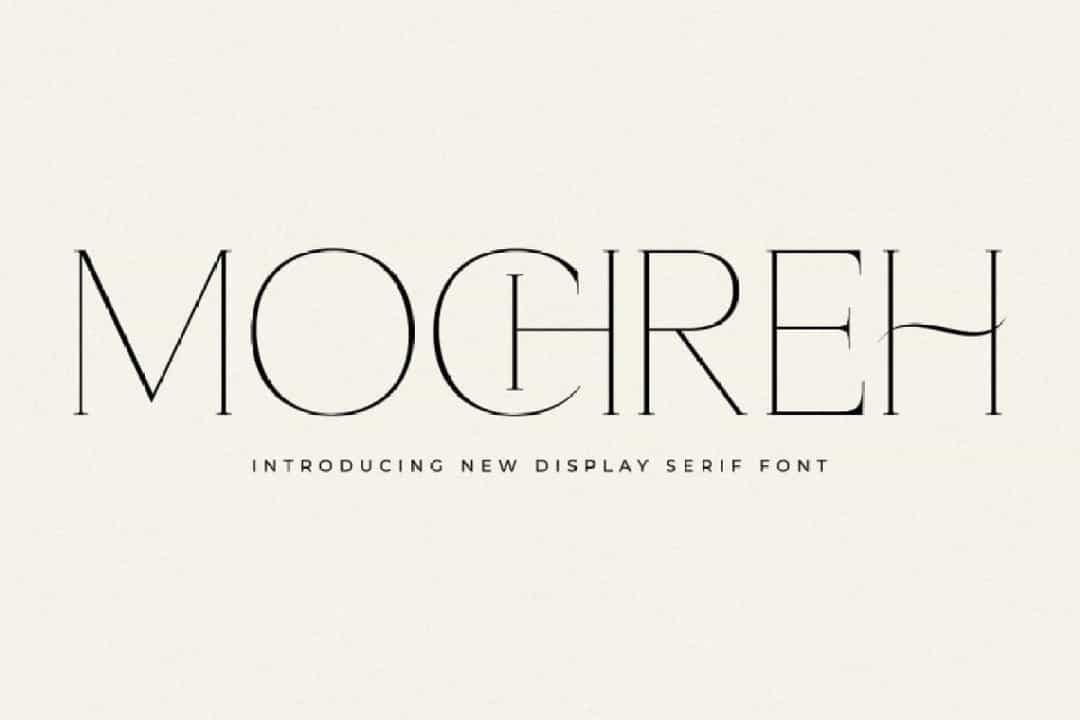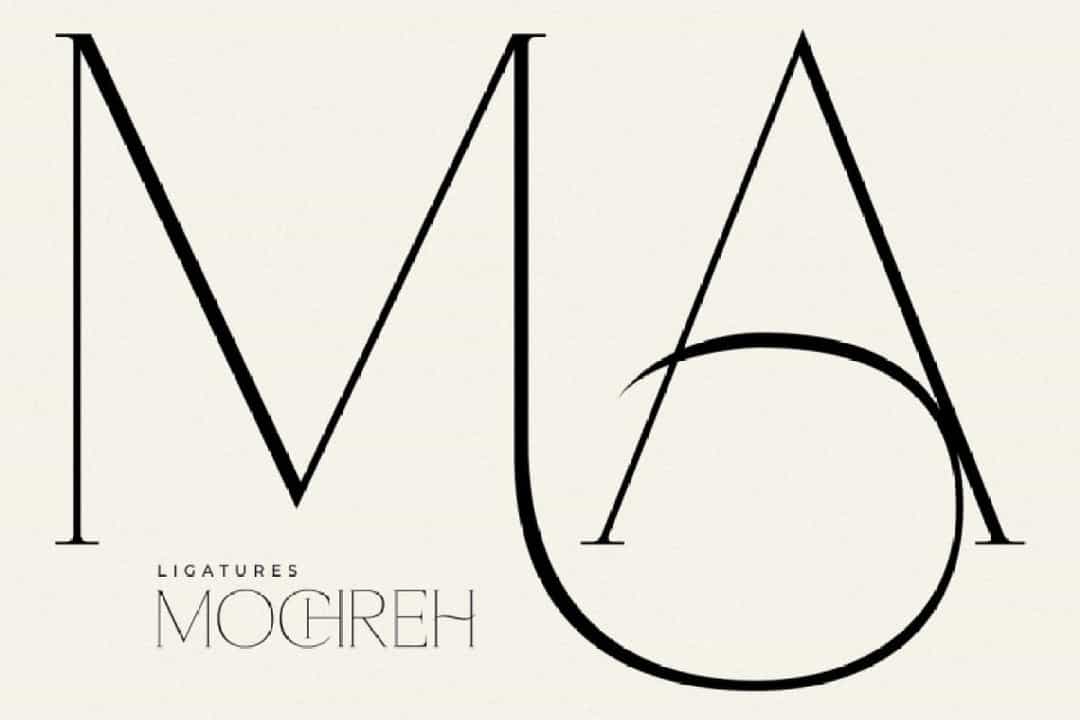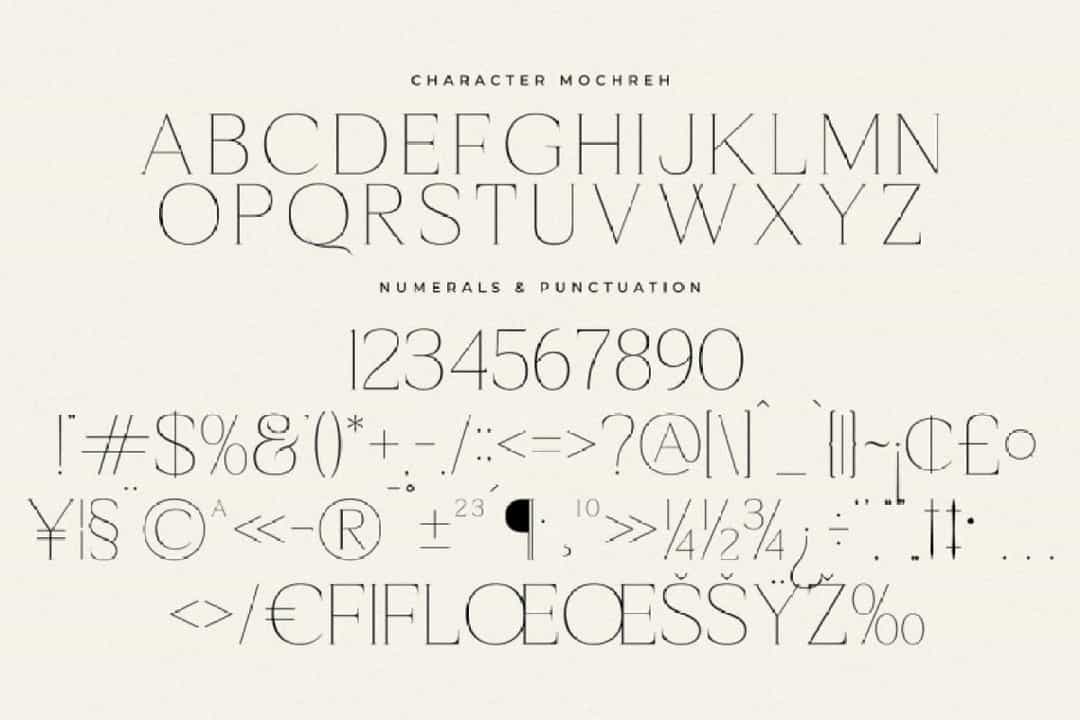
Discover Mochreh Font, part of the Serif Display collection—a versatile and unique font perfect for adding a personal touch to your projects. Download it for free and enjoy crafting designs with style, from invitations to social media posts. This font is available exclusively for personal use, giving you the freedom to create without limits. Unlock your creativity with Mochreh Font today!
Mochreh is an elegant serif typeface with an eye-catching style and contemporary aesthetic, ideal for creating stylish logos, book or film name designs, fashion magazine covers, clothing designs, lettering projects and quotes.